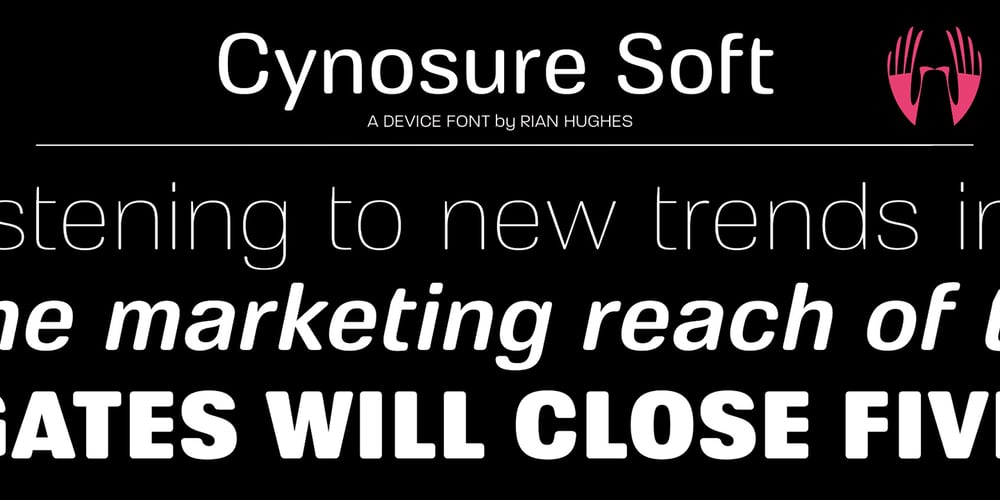
Cynosure Soft
Cynosure Soft font
Cynosure Soft Font Family was designed by Rian Hughes and published by Device. Cynosure Soft contains 14 styles and family package options. Cynosure Soft is a rounded, friendly version of Cynosur, a humanist sans with a subtle thick/thin stress. This gives it a clean, sharp elegance and precision that can be missing in some more familiar monoline sans faces.The wide range of weights and the matching reweighed italics make it a versatile solution where a consistent appearance across a broad range of applications is required. Its clear and inarguable design make it suitable for a wide variety of uses, from corporate to entertainment, text to headline, signage, logotypes, magazines and reports. The italics retain the design of the upright across all characters, again ensuring consistency. Includes tabular, lining and old-style numerals.